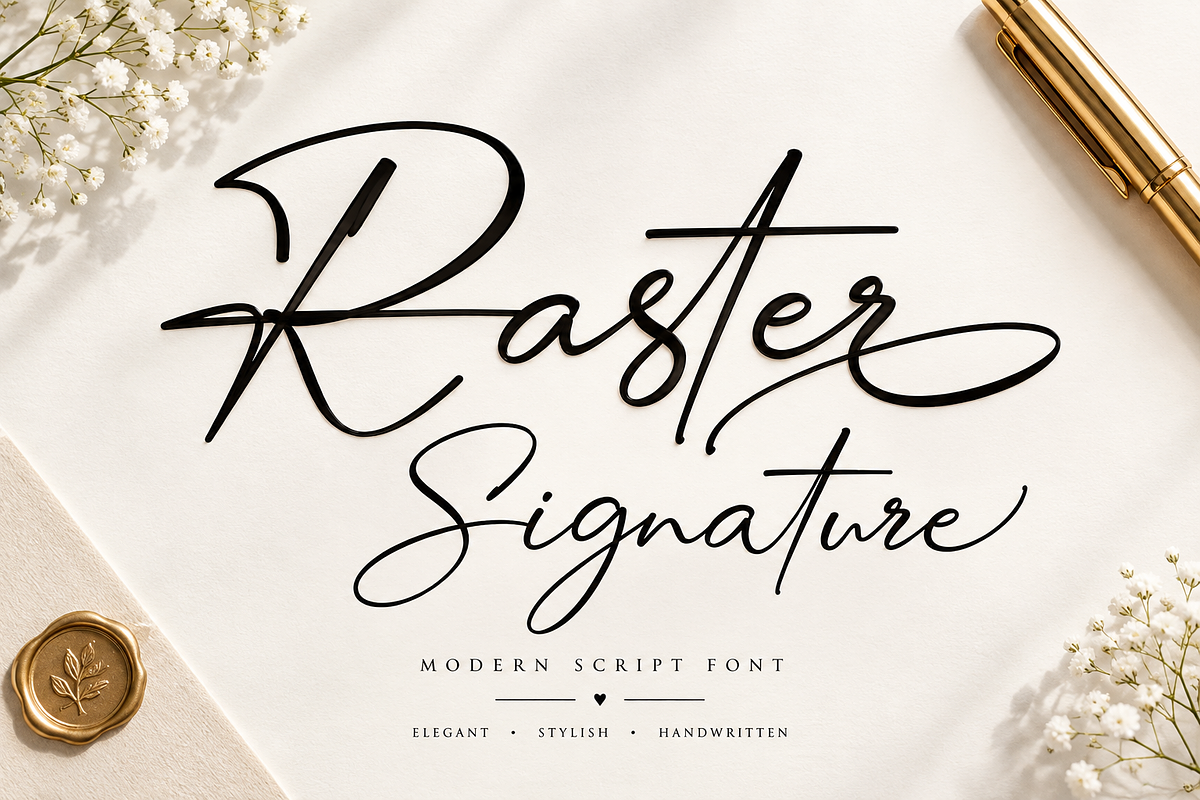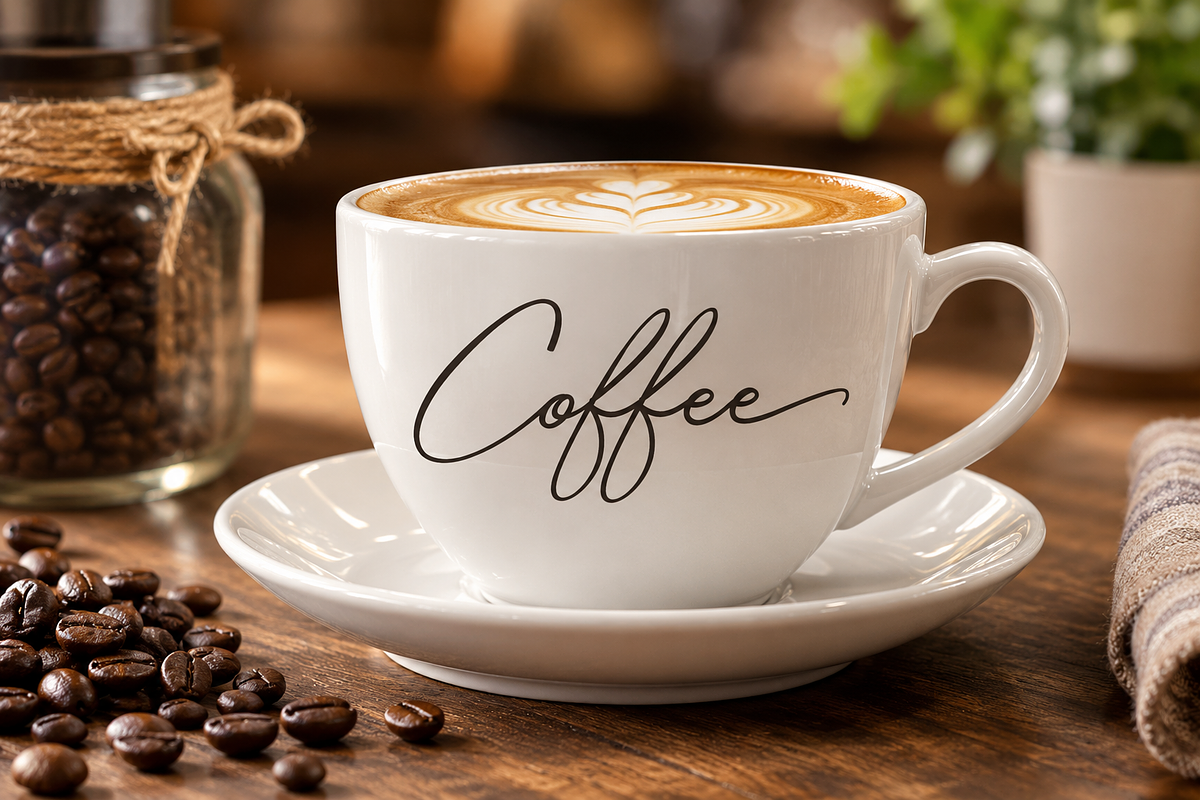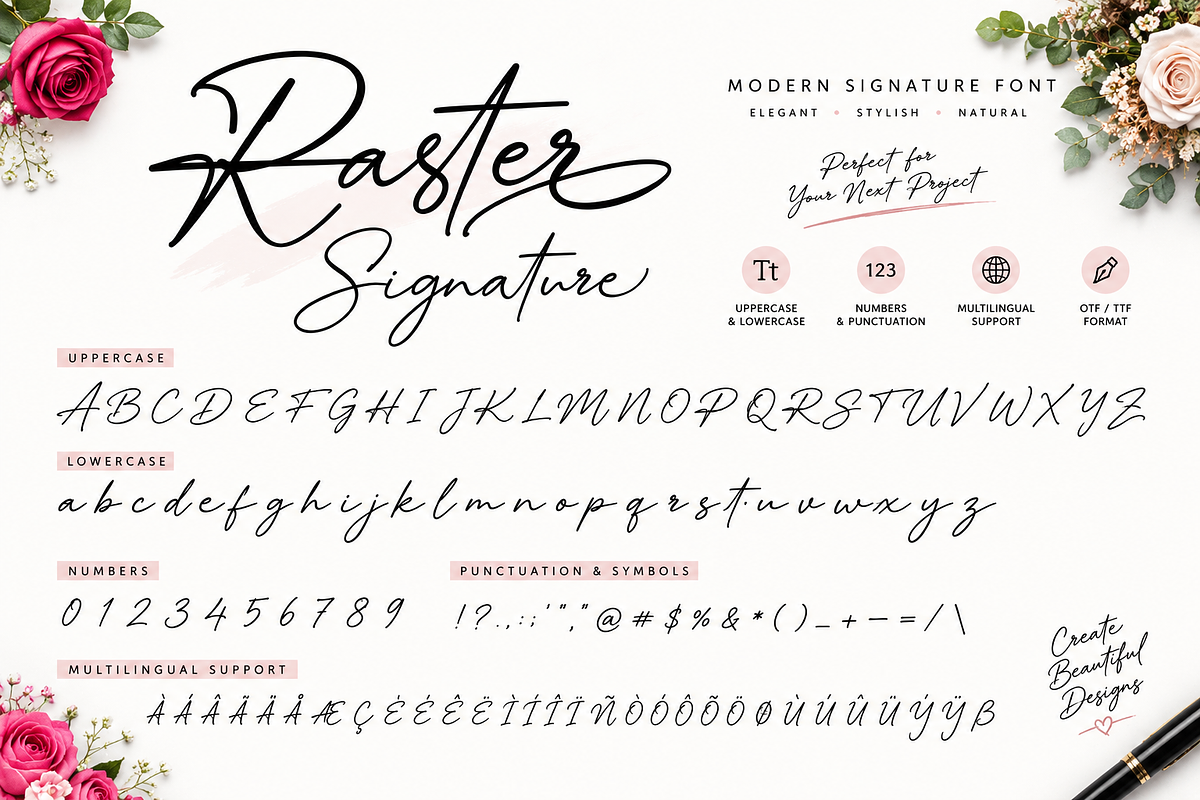
Raster Signature
Raster Signature is an elegant and expressive handwritten signature font designed to bring a sophisticated, personal, and artistic touch to every project. Featuring graceful flowing strokes, distinctive letterforms, dramatic swashes, and natural handwritten movement, this font creates an authentic signature-style aesthetic with a premium feel.
Perfect for logos, branding, wedding invitations, stationery, photography, fashion branding, social media designs, packaging, product labels, quotes, and personalized signatures.
Its stylish calligraphy makes Raster Signature especially suitable for projects that require a luxurious, feminine, romantic, and handcrafted appearance.
Raster Signature — Elegant strokes. Personal style. Timeless expression.